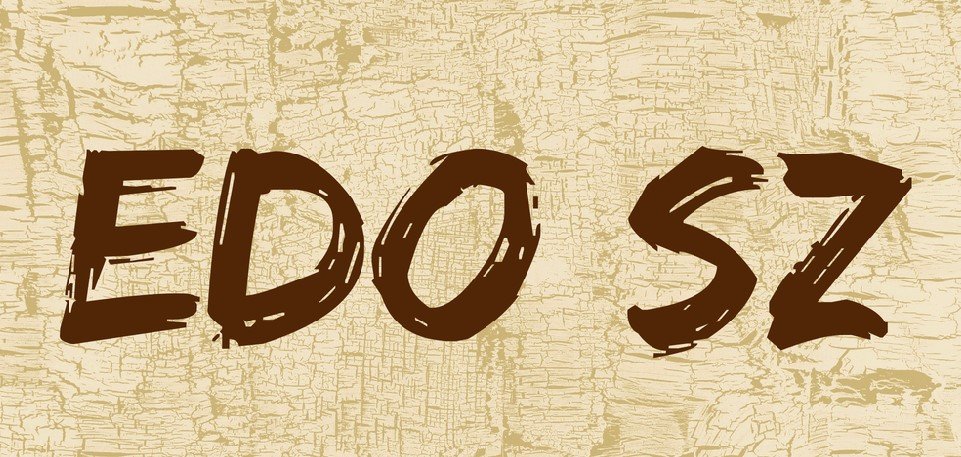
We are excited to introduce the exceptional font typeface created and released by Vic Fieger. The Edo SZ Font boasts remarkable features and offers a highly versatile typeface that elevates your projects to outstanding and unparalleled levels.
This is the best-brushed typeface to work as pairing with the combination of thirsty rough font, there are lots of similar fonts of this also available like Earthbound, tattoo font you can use any of these for pairing as well.
The Tattoo Font is very close to the Edo SZ Font.